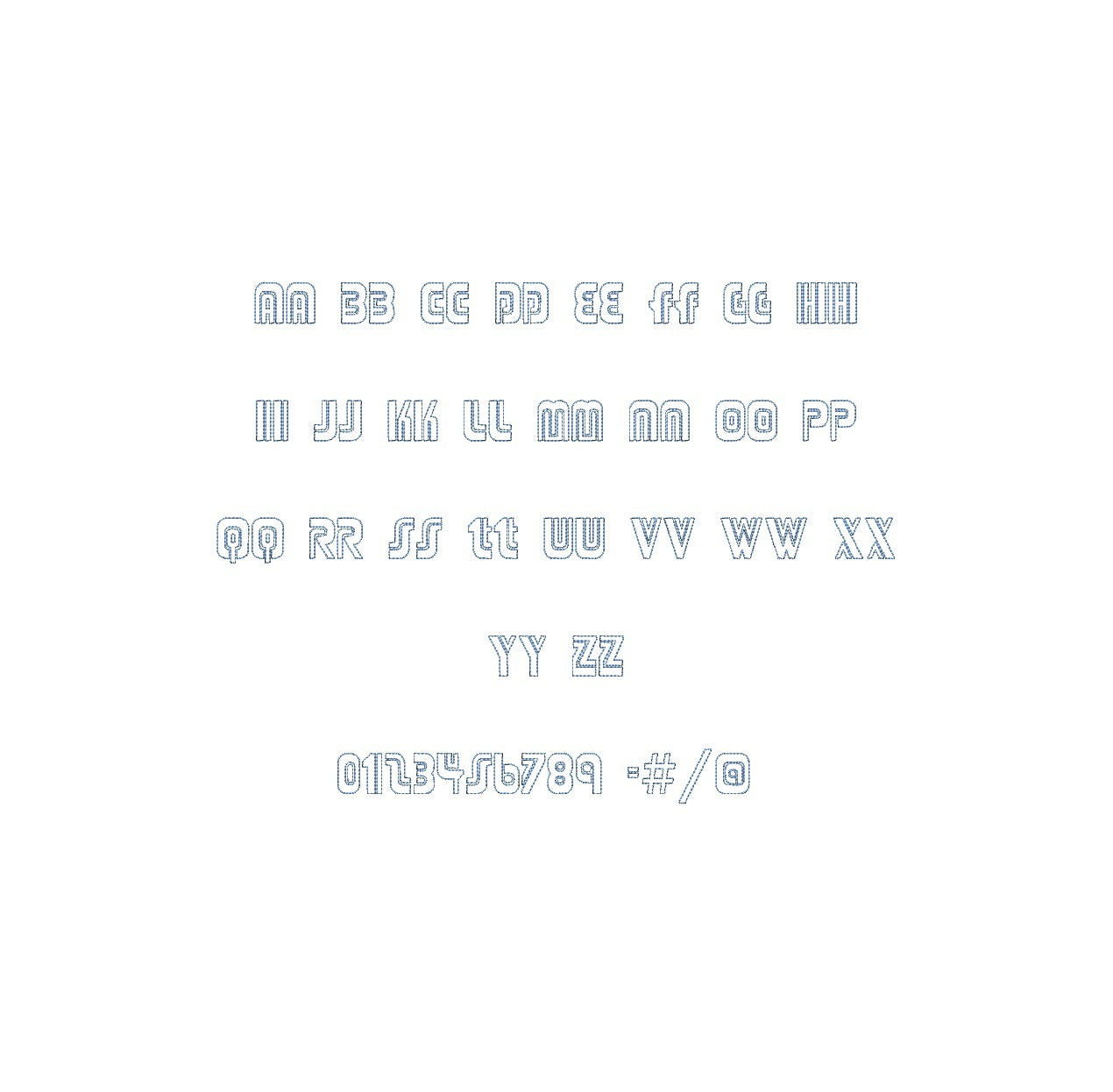
Adriator Bean Stitch Outline ESA font
Discover the perfect synergy of style and functionality with the Adriator Bean Stitch Outline ESA font. Crafted for embroidery enthusiasts using Wilcom Studio e4.5.6 and Hatch 3 versions and up, this font offers seamless compatibility, elevating your design projects. Its intricate bean outline adds a captivating dimension to your creations, while the ESA format ensures precision and ease during digitization. Elevate your embroidery game with Adriator's exquisite Bean Stitch Outline ESA font, and transform your designs into timeless masterpieces. Experience creativity without limits today.